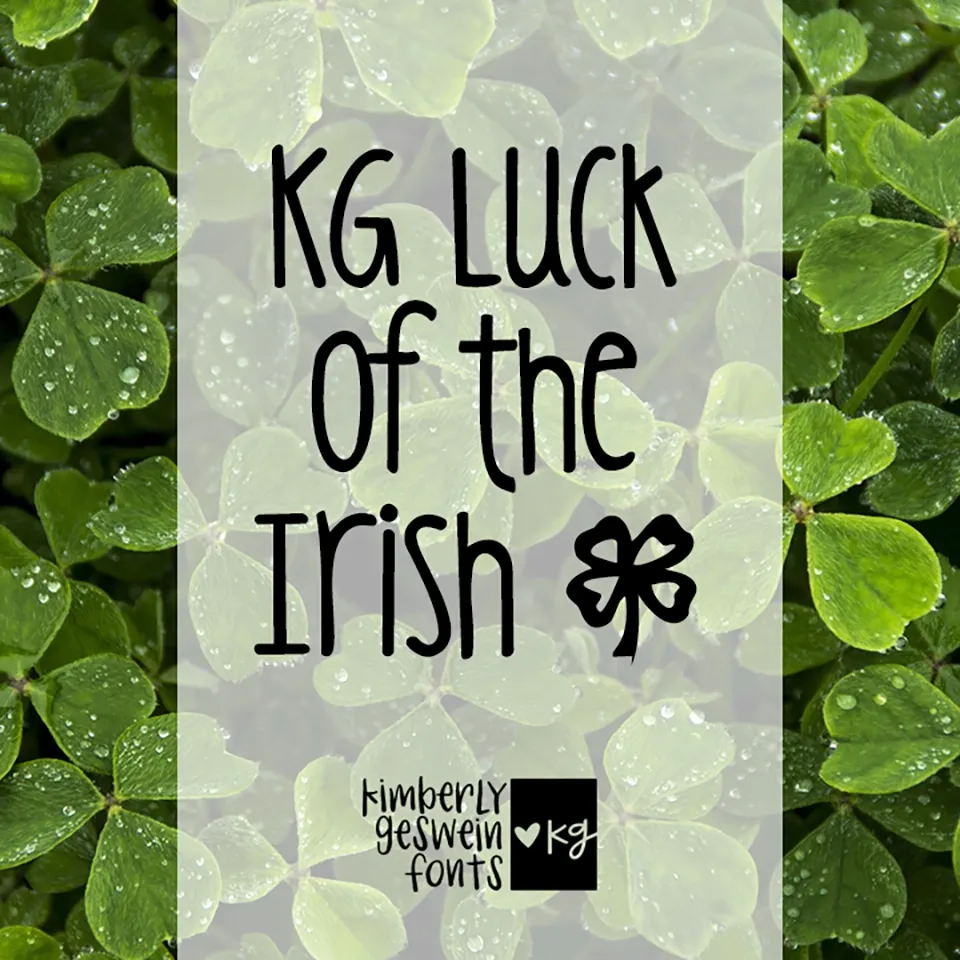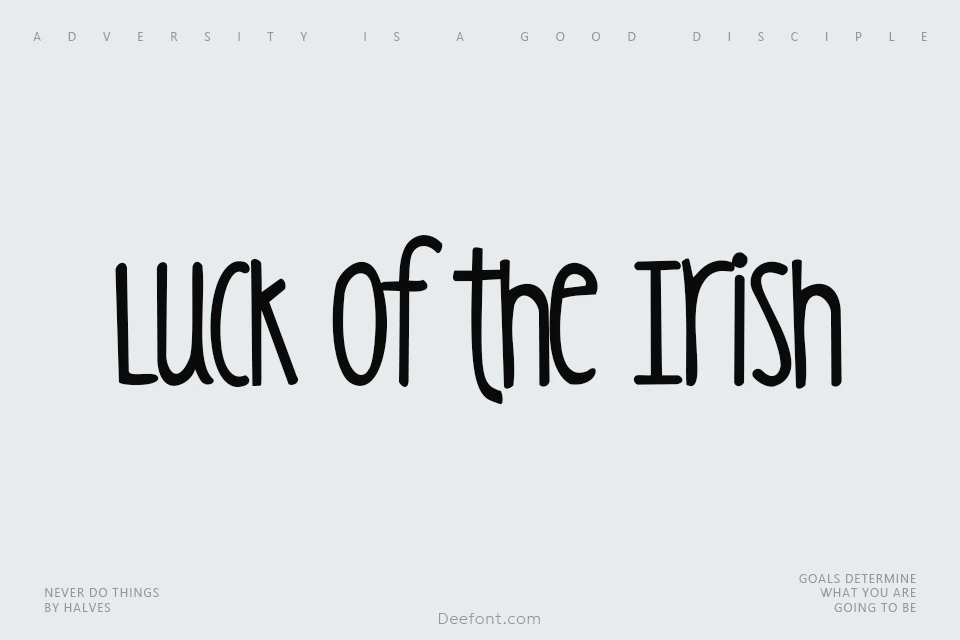
KG Luck of the Irish Font
KG Luck of the Irish Font is a charming handwritten typeface created by Kimberly Geswein in 2012. This unique unicase typeface features a narrow, playful style with slightly off-kilter characters that capture the spirit of Irish whimsy. The font includes a special four-leaf clover character accessible via the bar key (|), adding a touch of luck to any design. Perfect for St. Patrick’s Day projects, casual branding, or any design needing a cheerful, handcrafted feel. The font supports most Latin-based languages and comes in a single style. While free for personal use, it requires licensing for commercial applications.